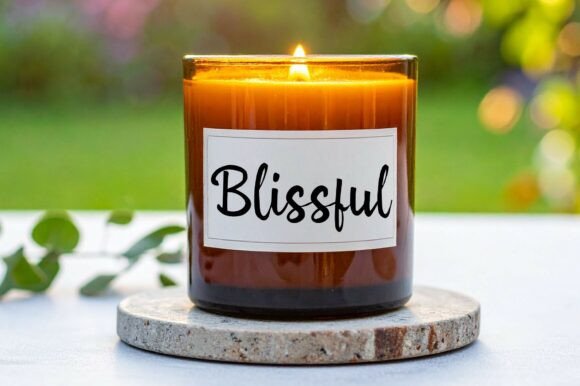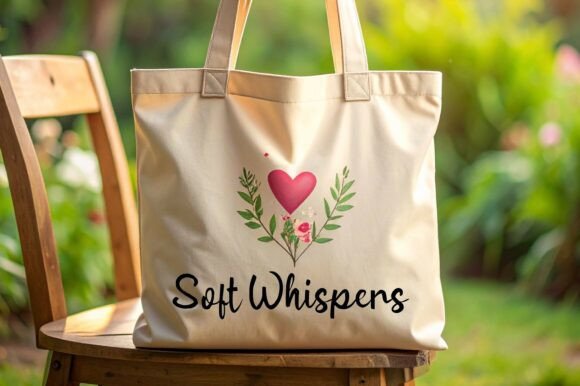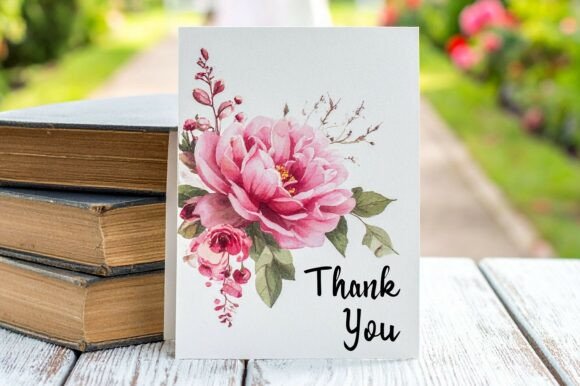
Find Your Inspiration in the Soft Glow of Bila Senja Font
Imagine yourself sitting at a quaint café, watching the sun set behind the bustling streets. The sky transforms into a canvas of warm hues, and the air fills with the sweet scent of blooming flowers. This serene moment sparks a creative flame within you, and you find yourself drawn to the romantic nuances of typography. It’s in these tranquil moments that the Bila Senja Font comes alive, transporting you to a world of enduring grace and elegance.
Bila Senja Font is a script font that embodies the essence of twilight, named after the Indonesian idiom for the soft, golden hour. This striking font is a treasure trove for designers, offering a unique blend of artisanal excellence and versatility. Whether on paper or digital canvas, Bila Senja Font infuses a genuine, lively spark into your designs, making it an invaluable addition to any creative arsenal.
Bila Senja Font Key Features
- Font Family: Bila Senja is a unique and elegant font family designed to provide a sophisticated look for various applications.
- Size: The font family includes a range of weights, from Thin to ExtraBold, with each weight available in multiple font sizes to cater to various design needs.
- Resolution: Bila Senja Font is designed for high-resolution displays, making it perfect for use in digital media, such as websites, social media, and mobile applications.
- Unique Characteristics: Bila Senja Font features a distinctive, flowing design with a mix of rounded and angular elements, giving it a modern and sophisticated feel.
- Language Support: The font family supports a wide range of languages, including Latin, Cyrillic, and Greek scripts, making it suitable for use in global applications.
Bila Senja Font Review
I’ve had the chance to work with the Bila Senja font, and I must say it’s a mixed bag. Here’s what I think.
- The Bila Senja font has a beautiful, elegant feel to it. The curves and lines work well together to create a sense of sophistication.
- The font is highly legible, even at smaller font sizes, making it a great choice for body text or captions.
- The font supports a wide range of languages, which is a huge plus for designers working on multilingual projects.
- The Bila Senja font is not ideal for headings or titles, as the letters can become too complex and overwhelming.
- The font lacks a clear, bold weight, which can make it difficult to create a clear visual hierarchy.
- The font may not be suitable for digital use, as the curves can become pixelated and lose their elegance.
The Bila Senja font is a beautiful, elegant font that excels in certain areas. However, its limitations make it less versatile than other fonts. If you’re looking for a font for body text or captions, Bila Senja is a great choice. But for headings, titles, or digital use, you may want to consider other options.
Bila Senja Font: A Practical Application Guide
Tips for Getting the Most Out of Bila Senja Font
Here are some tips for getting the most out of Bila Senja Font:
- Experiment with different font sizes and styles to achieve a unique look.
- Pair Bila Senja Font with other fonts to create a visually appealing contrast.
- Use Bila Senja Font in combination with creative graphics and images to enhance your design.
Bila Senja Font is commonly used in:
- Br
Alternatives to Bila Senja Font
Bila Senja Font is a popular font known for its elegant and refined style. If you’re looking for alternatives to this font, here are a few options:
Lato is a sans-serif font that is highly legible and versatile. It’s perfect for use in digital media, such as websites and mobile apps, as well as in print materials like business cards and brochures. Lato has a similar feel to Bila Senja Font but with a more modern and sleek appearance.
Q: Are there any variations or custom versions of Bila Senja Font available?